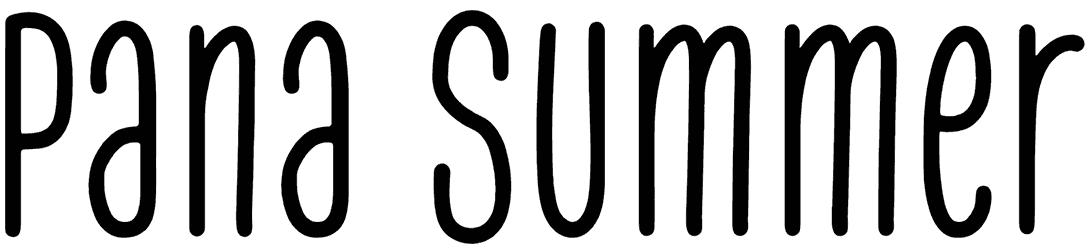
Pana Summer Font
If you are looking for a simple font with a strong visual effect that will make your creations more appealing than any other fonts, you can hit the target by downloading Pana Summer. This summer font, which has two styles, can give a familiar and informal atmosphere to your writings with its delicacy.
Therefore, if you have not used numbers in your design, this font can be the right call for packaging, cover design, logo, and interfaces.